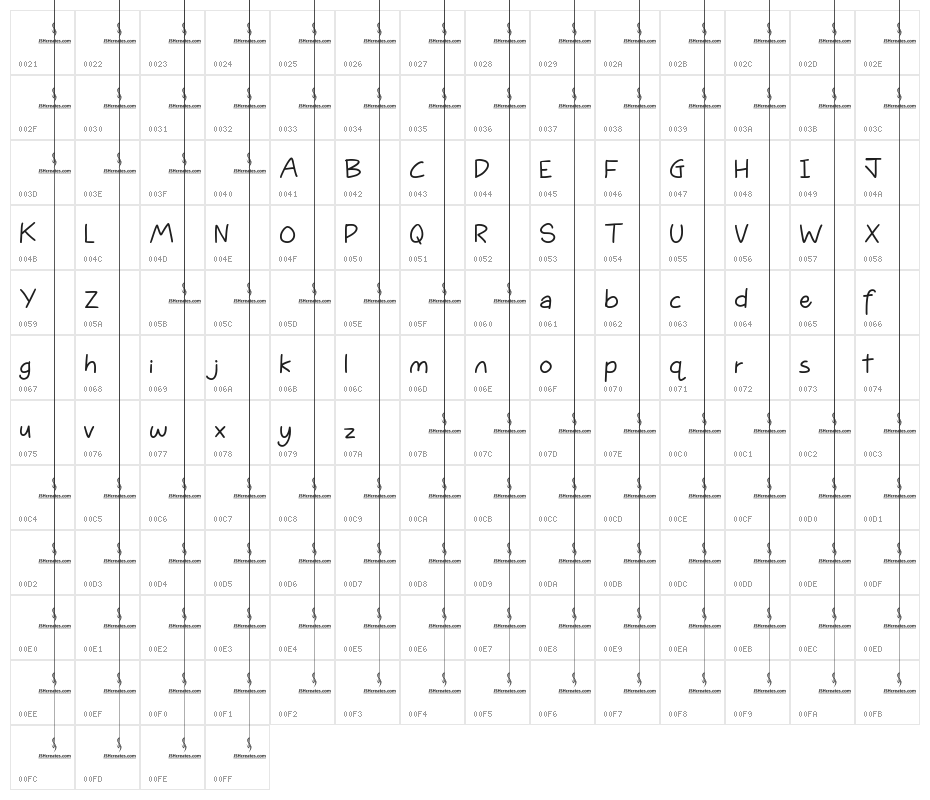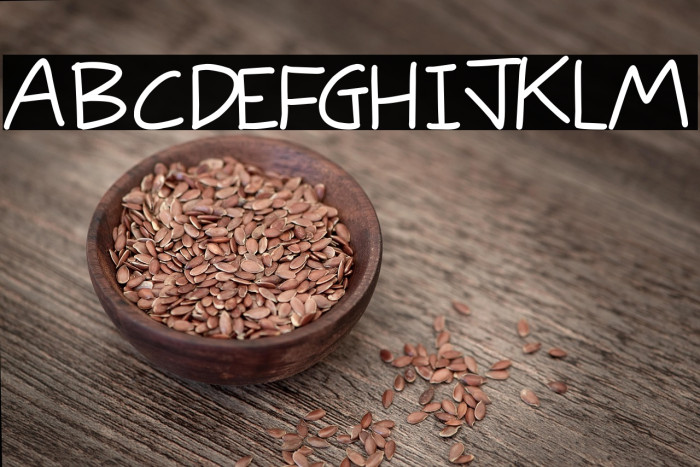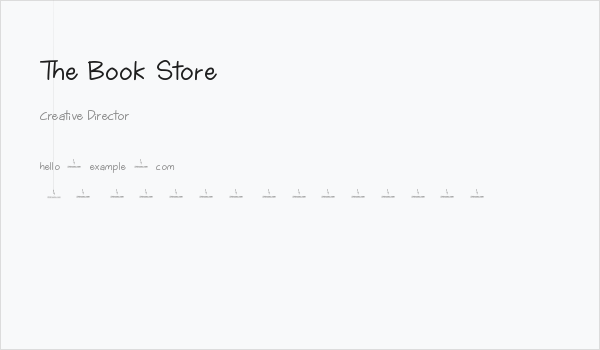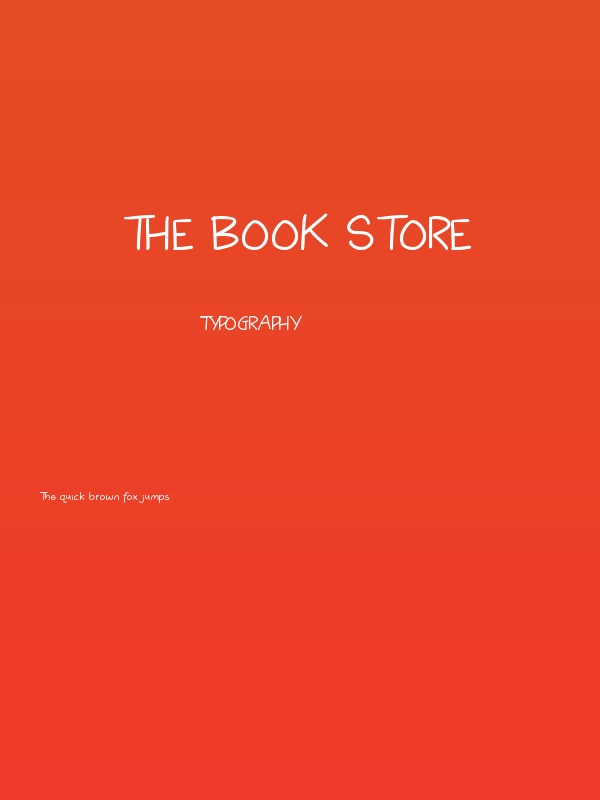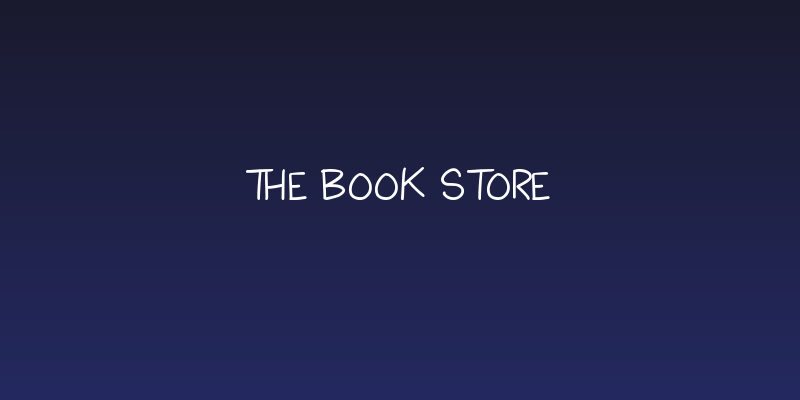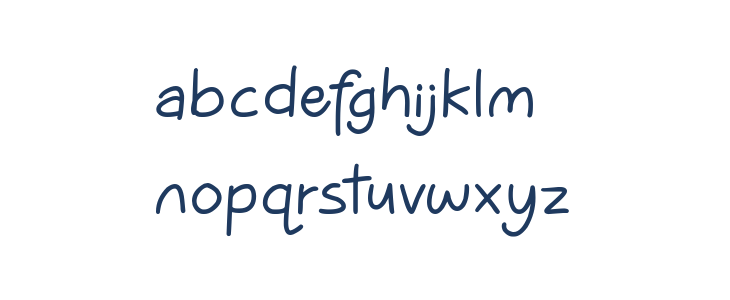
The Book Store Font
The Book Store Description
This font features a playful and informal handwritten style, characterized by its smooth, rounded edges and slightly irregular letterforms. The uppercase letters are bold and prominent, while the lowercase letters maintain a consistent flow with a casual appearance. The font exudes a friendly and approachable vibe, making it suitable for projects that require a personal touch. Its legibility is maintained across different sizes, and the unique character shapes add a distinctive charm. The spacing between characters is balanced, ensuring readability without compromising its whimsical nature.
| Overall Style | Casual |
| Use Case | Headlines, Informal text, Creative projects |
| Proposed Projects | Ideal for children's books, greeting cards, personal blogs, and informal branding. |